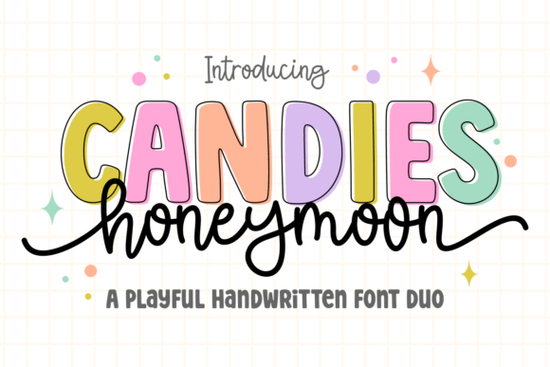
If you're looking for a font that brings a touch of sweetness and charm to your designs, Candies Honeymoon is a delightful choice. This handwritten font duo combines a bold, candy-inspired display with an elegant flowing script, making it perfect for adding warmth and personality to any project.
Why Choose Candies Honeymoon Font?
Candies Honeymoon is designed to capture the magic of both playful and sophisticated elements. Whether you're working on premium branding, stylish invitations, or boutique packaging, this typeface can help you create designs that feel charming and distinctive. The combination of the bold display and the elegant script allows for versatility, making it a go-to choice for many designers.
How Can I Use Candies Honeymoon in My Designs?
The versatility of Candies Honeymoon makes it suitable for a wide range of design projects. Here are some ideas:
- Branding: Use the bold display for logos and the script for taglines to create a cohesive and memorable brand identity.
- Invitations: Add a touch of elegance to wedding, birthday, or event invitations with the flowing script, while the bold display can highlight important details.
- Boutique Packaging: Create eye-catching labels and packaging designs that stand out on the shelf with the unique blend of styles.
- Social Media Graphics: Craft curated posts and stories that align with your brand's aesthetic, using the font to add a personal touch.
What Makes Candies Honeymoon Stand Out?
One of the key features of Candies Honeymoon is its ability to balance playfulness and sophistication. The bold, candy-inspired display adds a fun and vibrant element, while the elegant script provides a refined and polished look. This duality makes it a versatile tool for designers who want their work to be both charming and distinctive.
How Does Candies Honeymoon Compare to Other Script Fonts?
When comparing Candies Honeymoon to other popular script fonts, such as Love Doodle or Crafto, each has its unique strengths. Love Doodle, for example, offers a more whimsical and doodle-like style, ideal for casual and creative projects. Crafto, on the other hand, provides a more traditional and classic script, perfect for formal and elegant designs. Candies Honeymoon stands out with its dual nature, offering both a bold and a script option, making it a versatile choice for a variety of design needs.
Tips for Using Candies Honeymoon Effectively
To get the most out of Candies Honeymoon, consider these tips:
- Balance the Styles: Use the bold display and elegant script in a balanced way to avoid overwhelming your design. For example, use the bold for headings and the script for subheadings or body text.
- Choose Complementary Colors: Select colors that enhance the playful and sophisticated nature of the font. Soft pastels and vibrant hues can work well, depending on the tone you want to set.
- Test Different Sizes: Experiment with different sizes to find the right balance for your specific project. The bold display can be used for larger text, while the script can be more subtle and refined.
- Combine with Simple Elements: Pair Candies Honeymoon with simple and clean design elements to let the font take center stage. This can help in creating a more focused and impactful design.
By following these tips, you can effectively use Candies Honeymoon to create designs that are both charming and distinctive. Whether you're a designer, crafter, print-on-demand seller, or small business owner, this font can be a valuable addition to your creative toolkit.
Next Steps: Try out Candies Honeymoon in your next project and see how it enhances the overall look and feel. Don't forget to experiment with different combinations and styles to find what works best for your design needs.